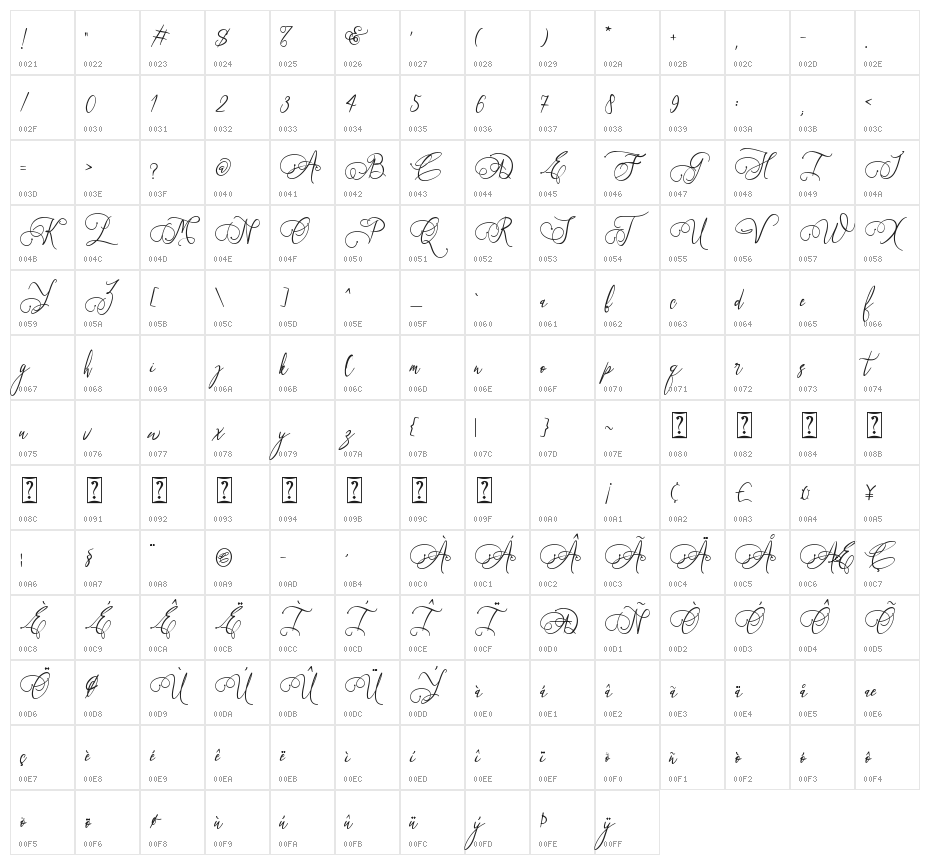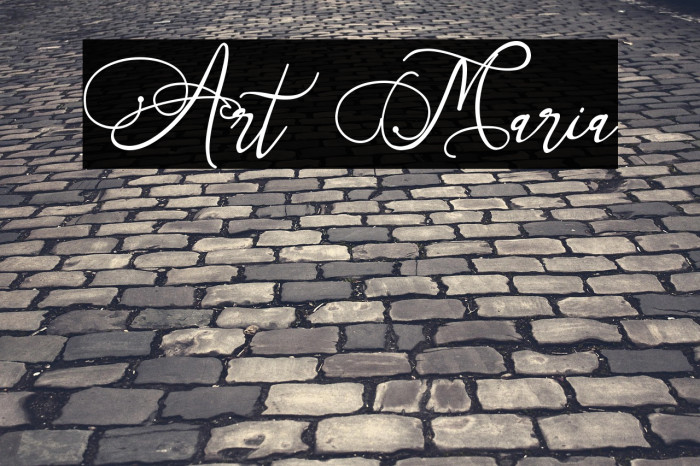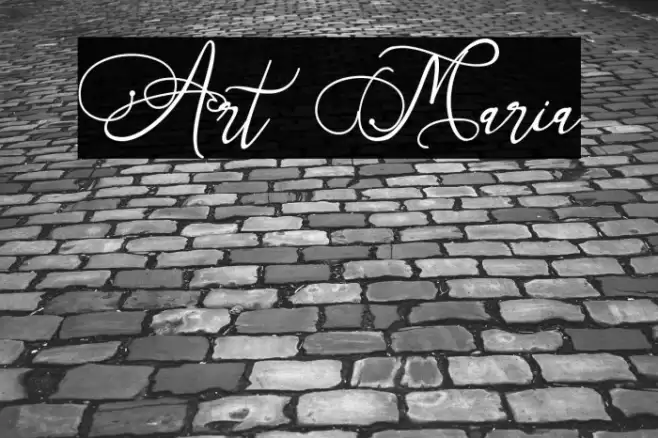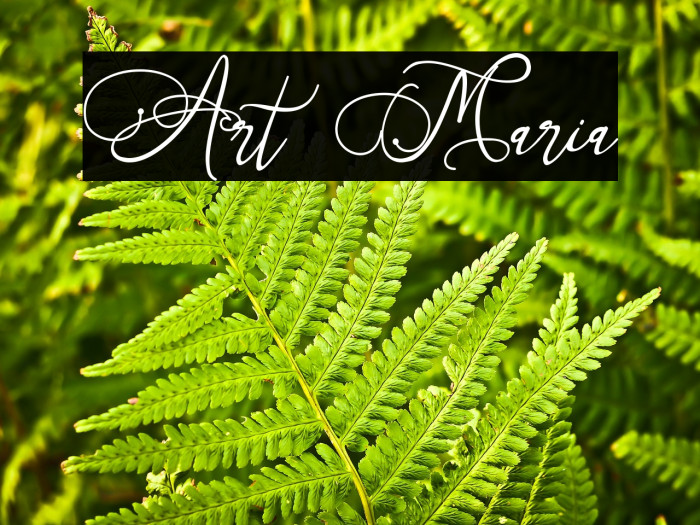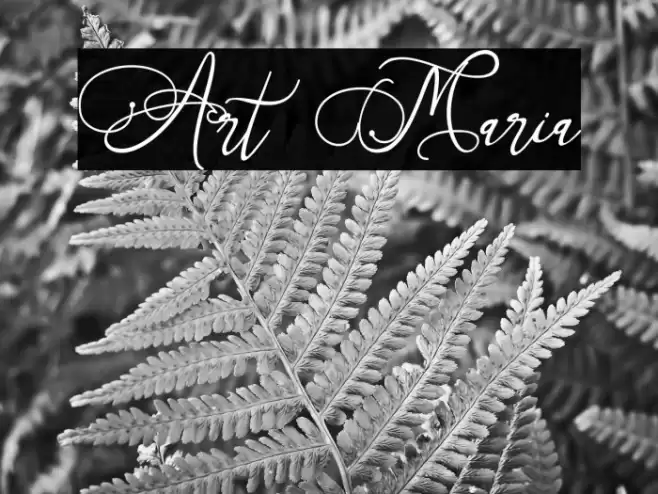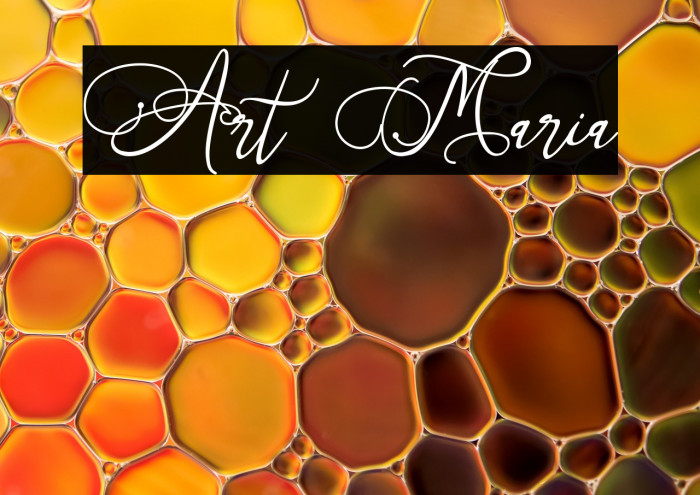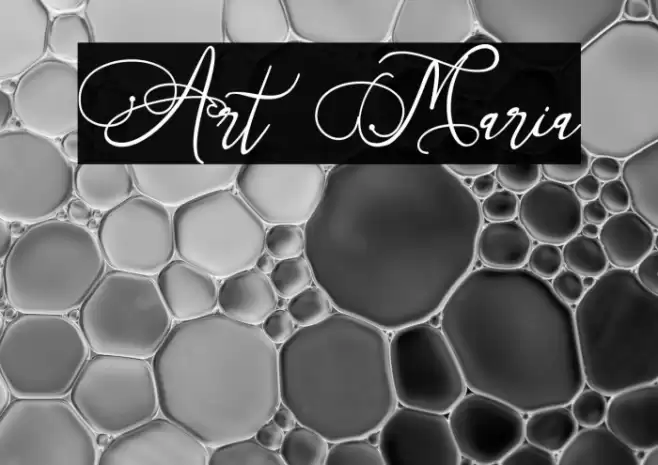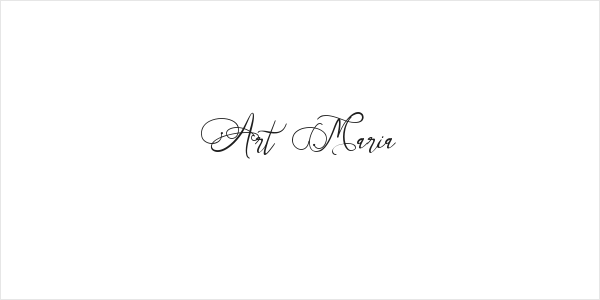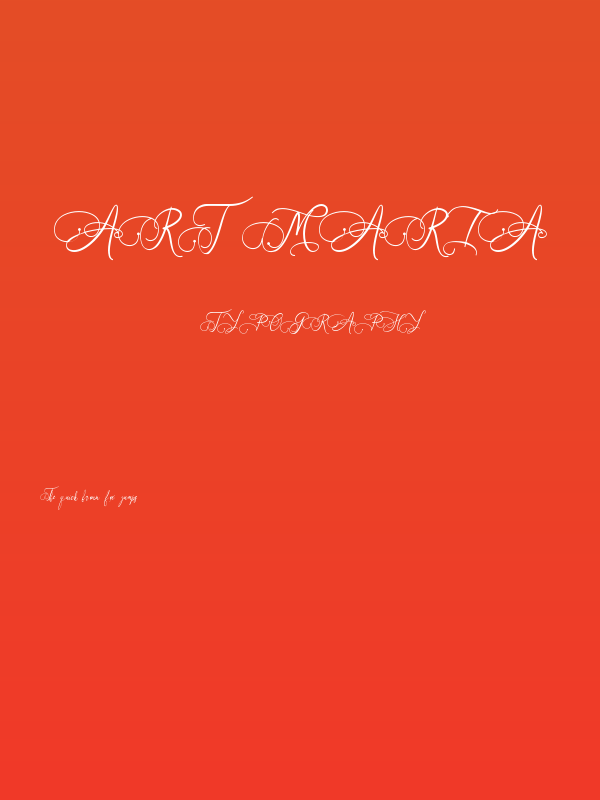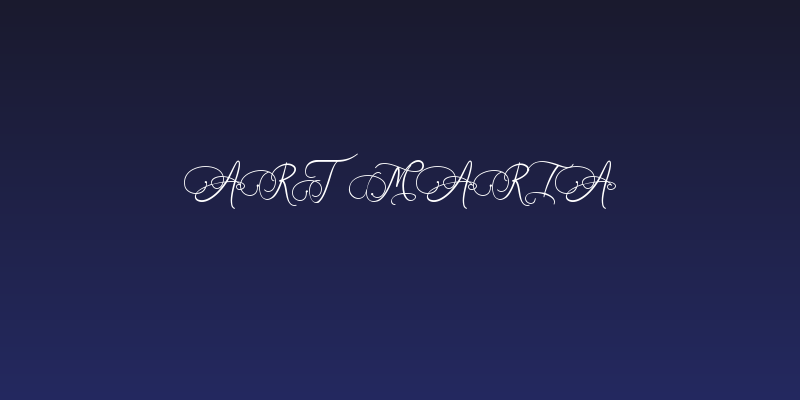
Art Maria Font
Art Maria Description
This elegant script font features intricate, flowing letterforms with a high degree of ornamentation, particularly in the uppercase letters. The lowercase letters maintain a more traditional cursive style, offering a beautiful contrast with their simpler, yet still graceful, design. The numbers and special characters are consistent with the overall aesthetic, providing a cohesive look. The font's delicate strokes and loops give it a sophisticated and artistic appearance, making it ideal for formal and decorative applications. Its high contrast in stroke thickness adds to its visual appeal, enhancing the readability of the text while maintaining its decorative nature.
| Proposed Projects | Ideal for wedding invitations, greeting cards, branding, and decorative headlines. |